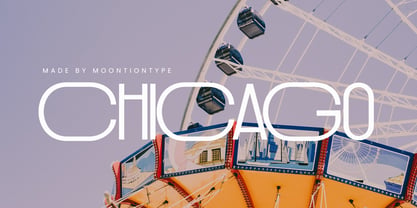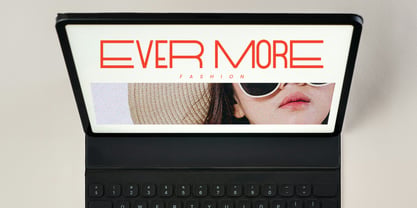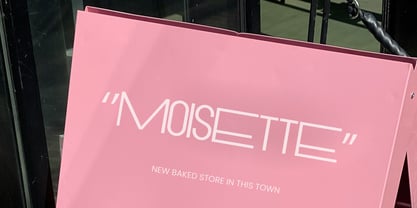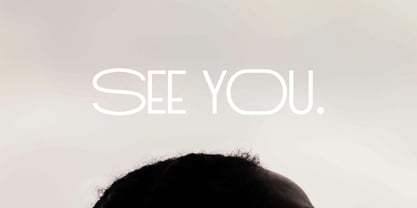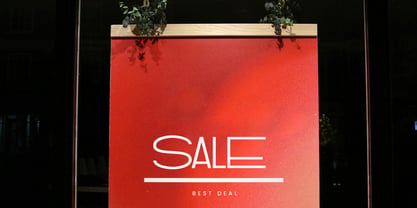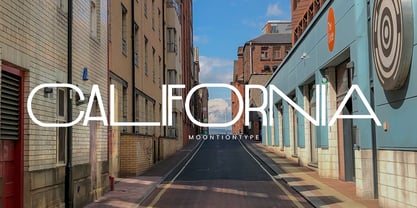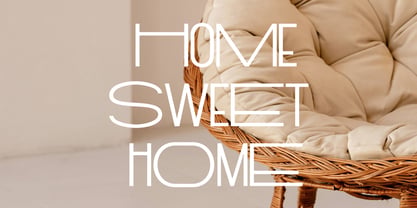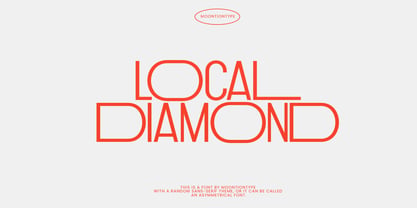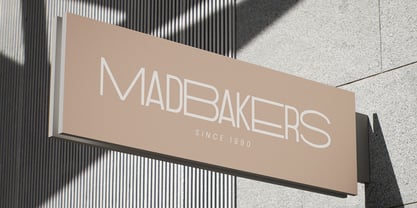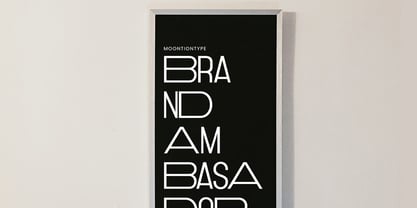
Local Diamond
Local Diamond is a modern sans serif display font with a unique asymmetrical character style. Designed with a clean yet unconventional structure, this typeface brings a fresh and contemporary edge to your creative projects.
Created by Moontiontype, Local Diamond combines minimalism with distinctive letterforms, making it perfect for bold visual statements.
Font Characteristics :
- Modern sans serif style
- Asymmetrical and slightly unconventional letterforms
- Clean, bold, and eye-catching design
- Strong presence for headlines and branding
Perfect For :
- Logos & branding
- Posters & editorial layouts
- Social media graphics
- Packaging design
- Fashion & lifestyle branding
- Website headers
- Creative typography projects
If you're looking for a clean sans serif font with a twist — something modern but not ordinary — Local Diamond gives your designs a confident, contemporary personality.